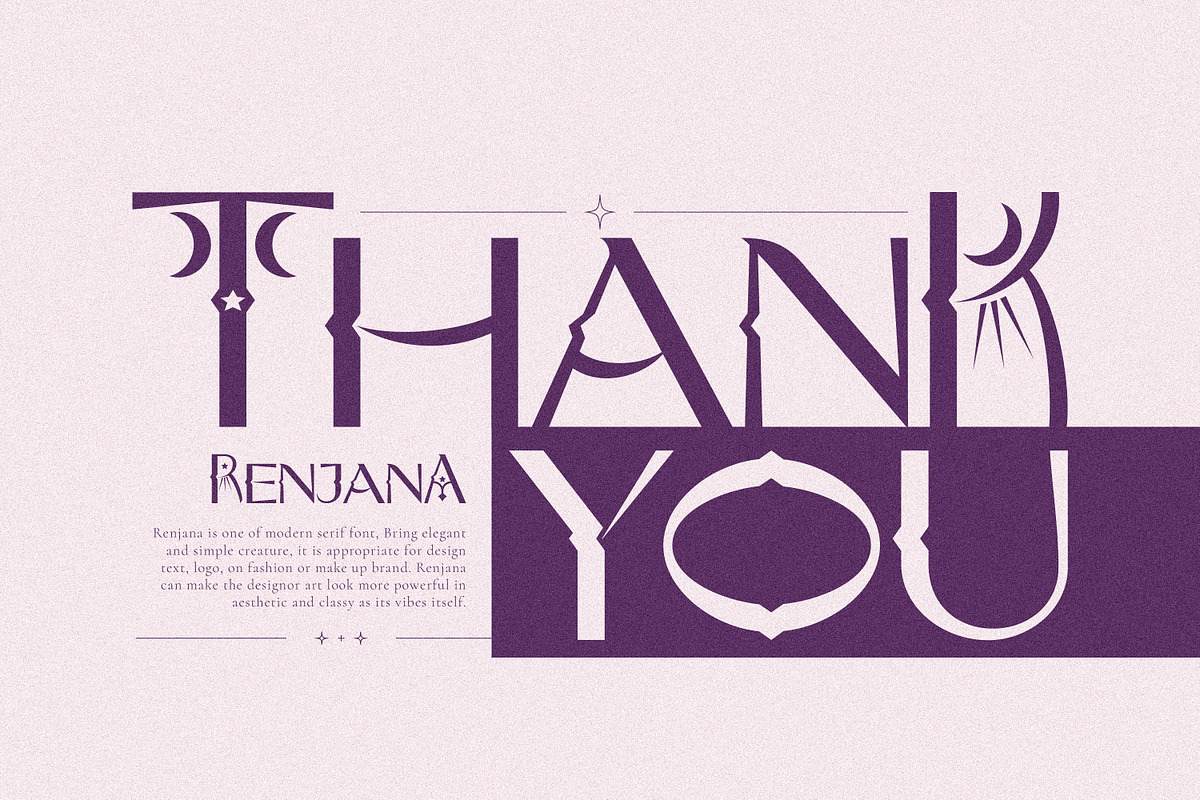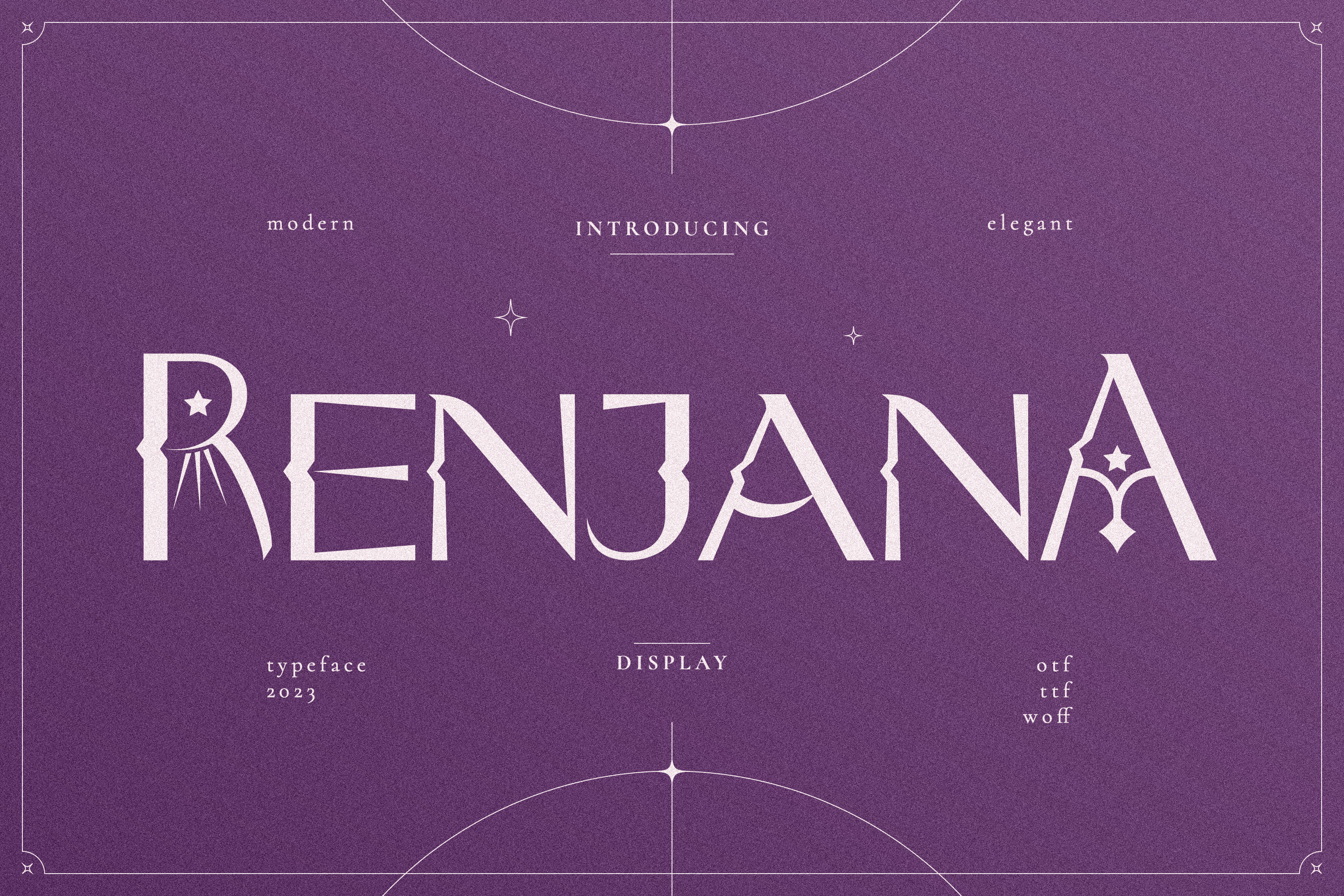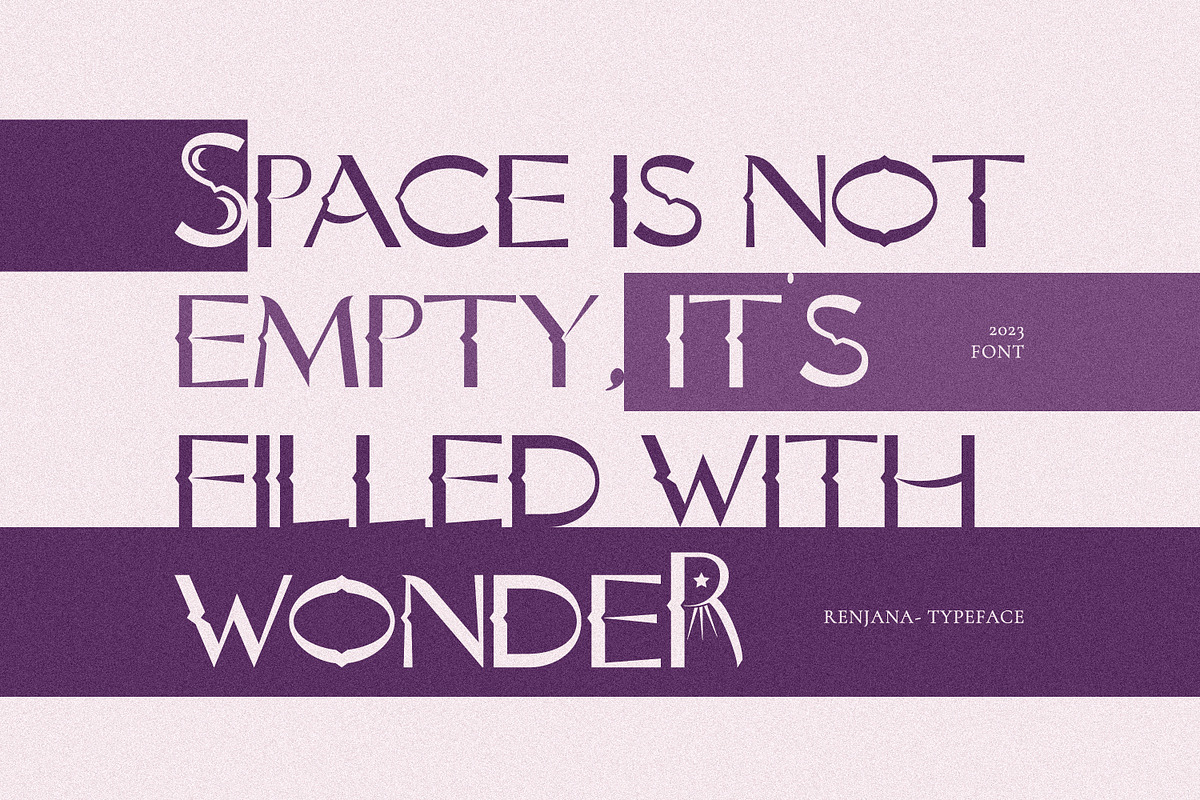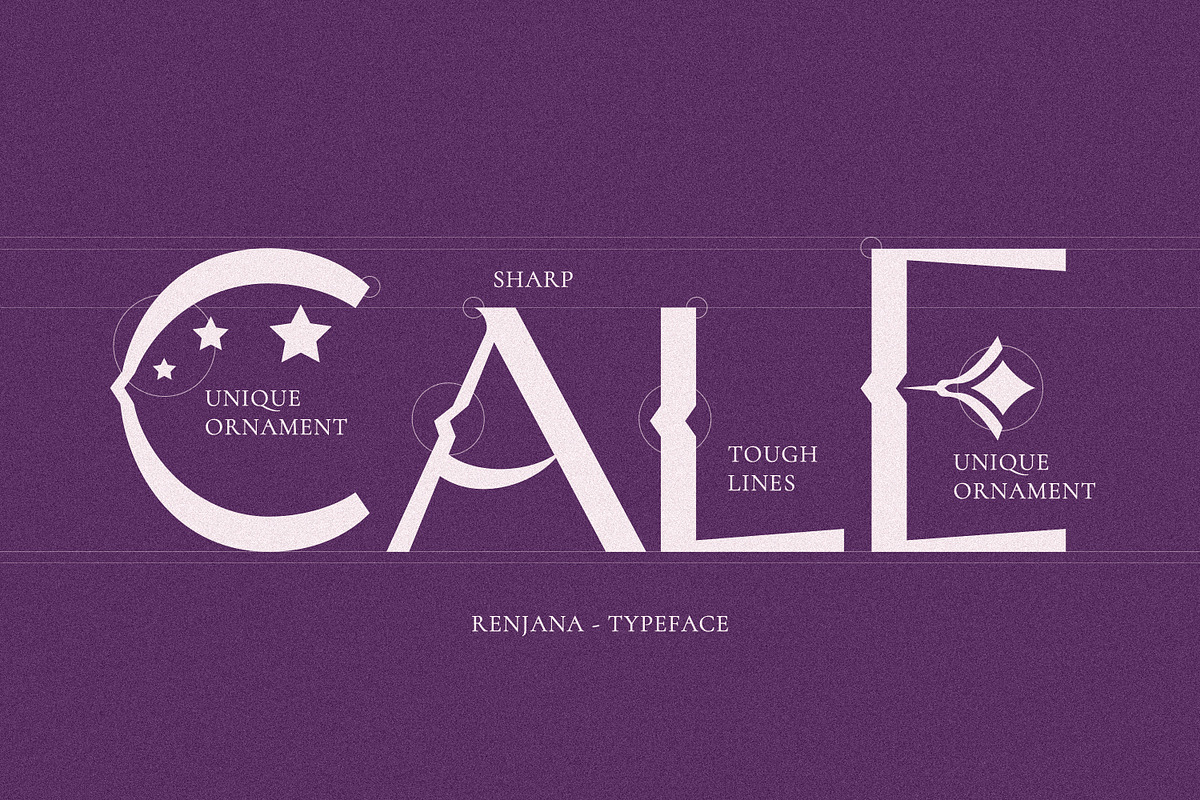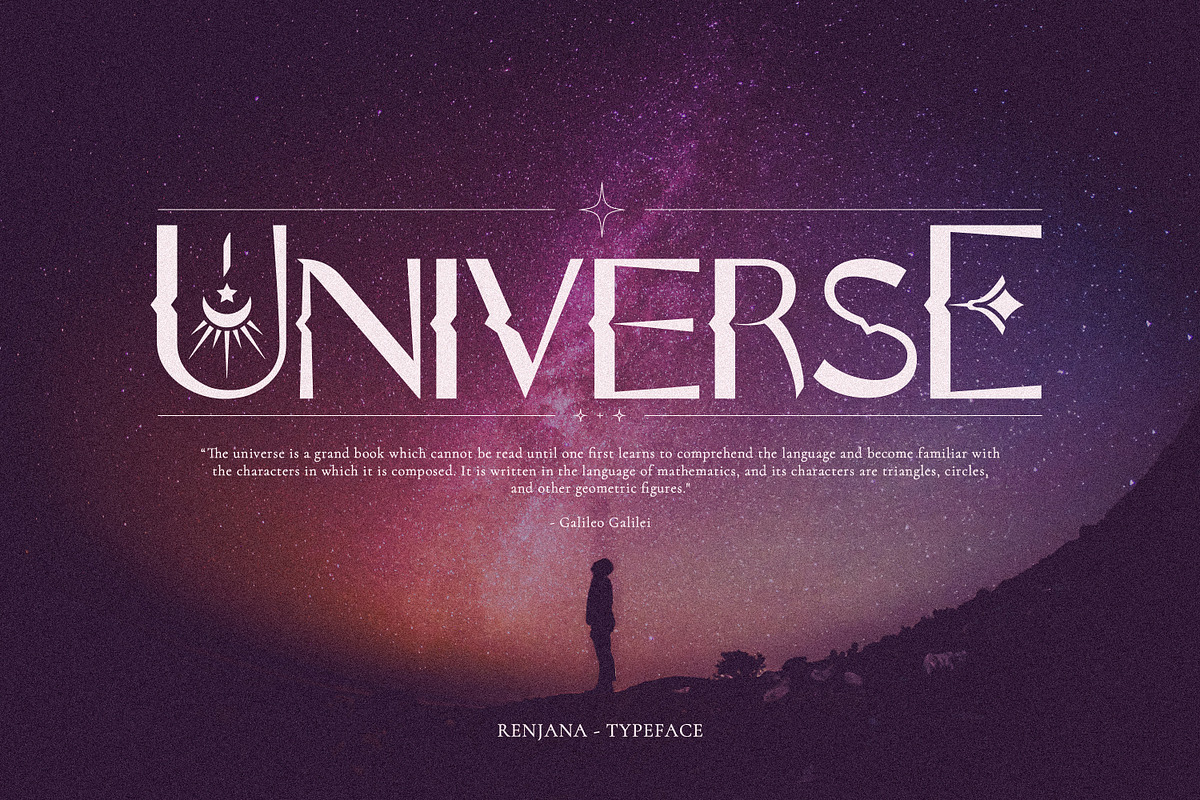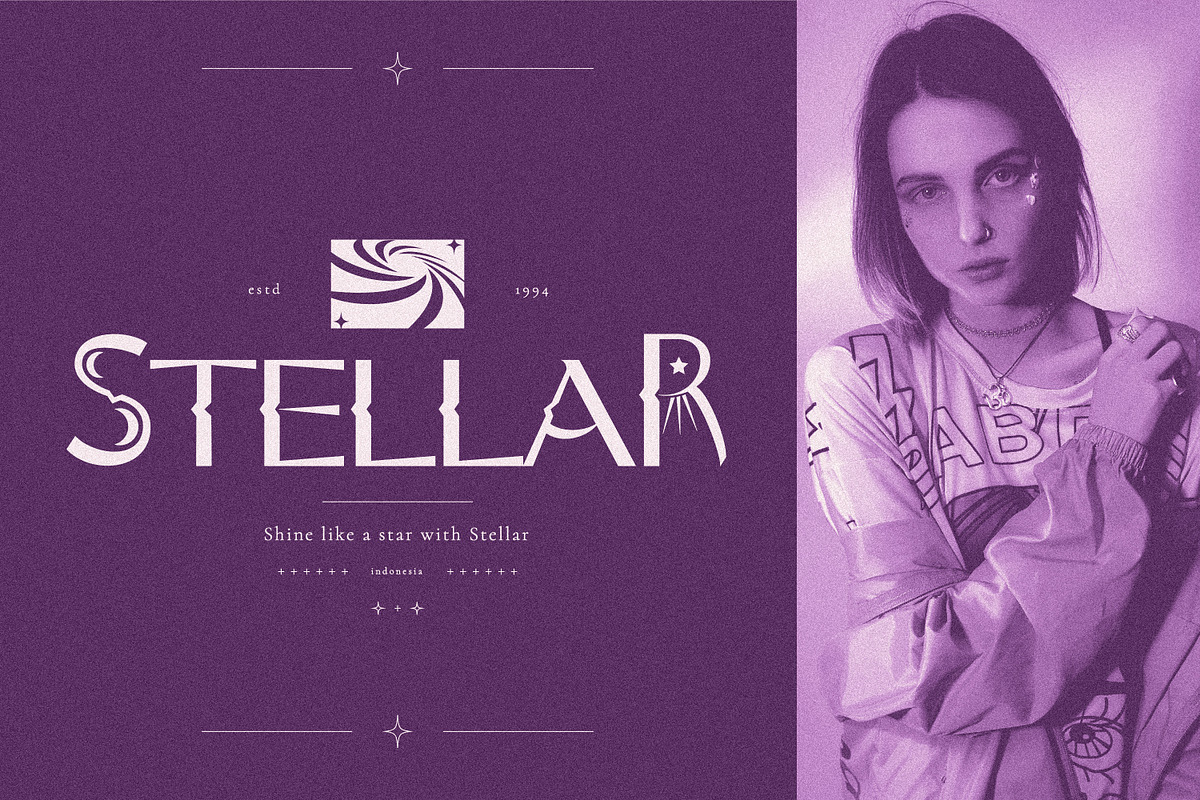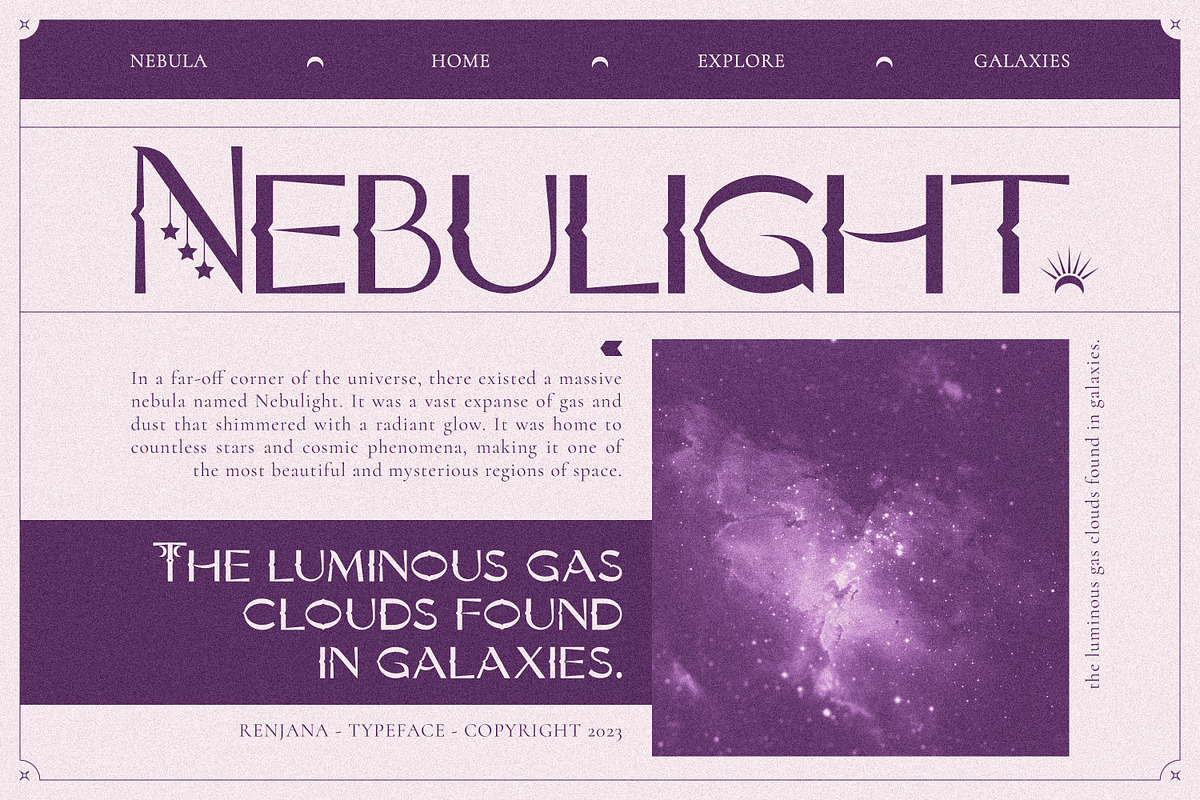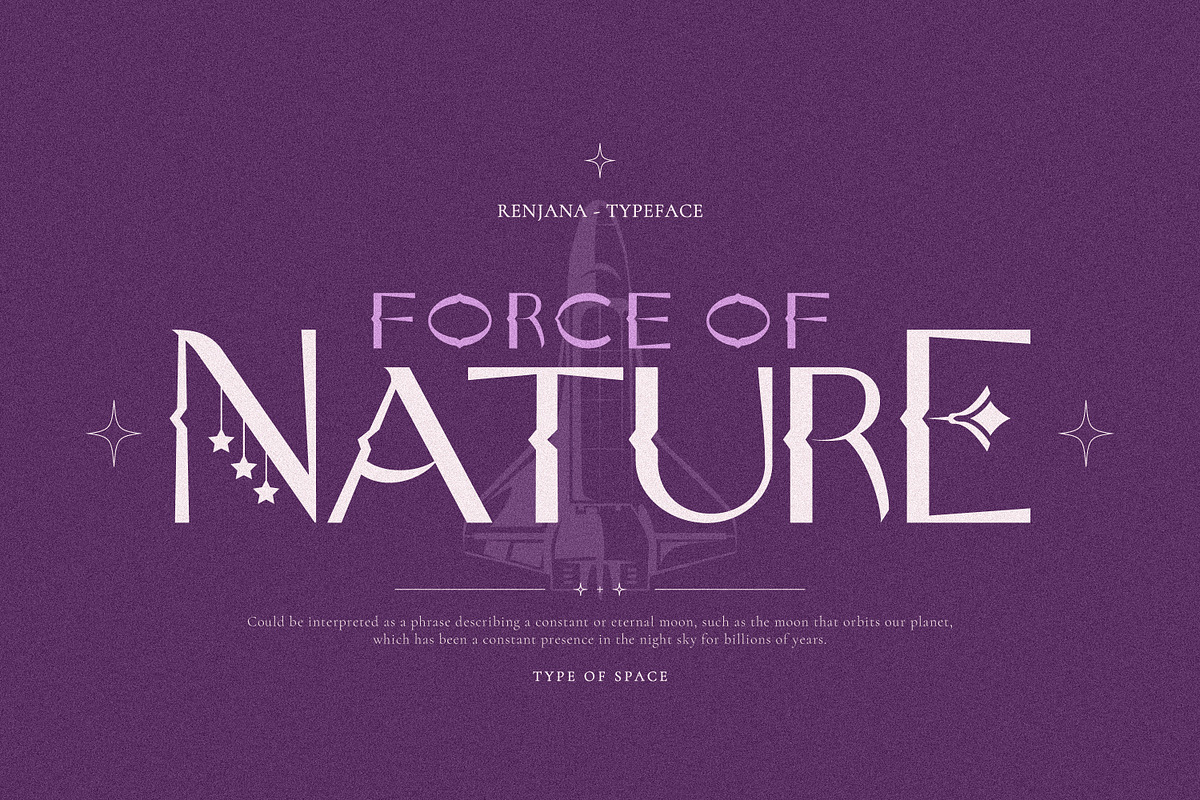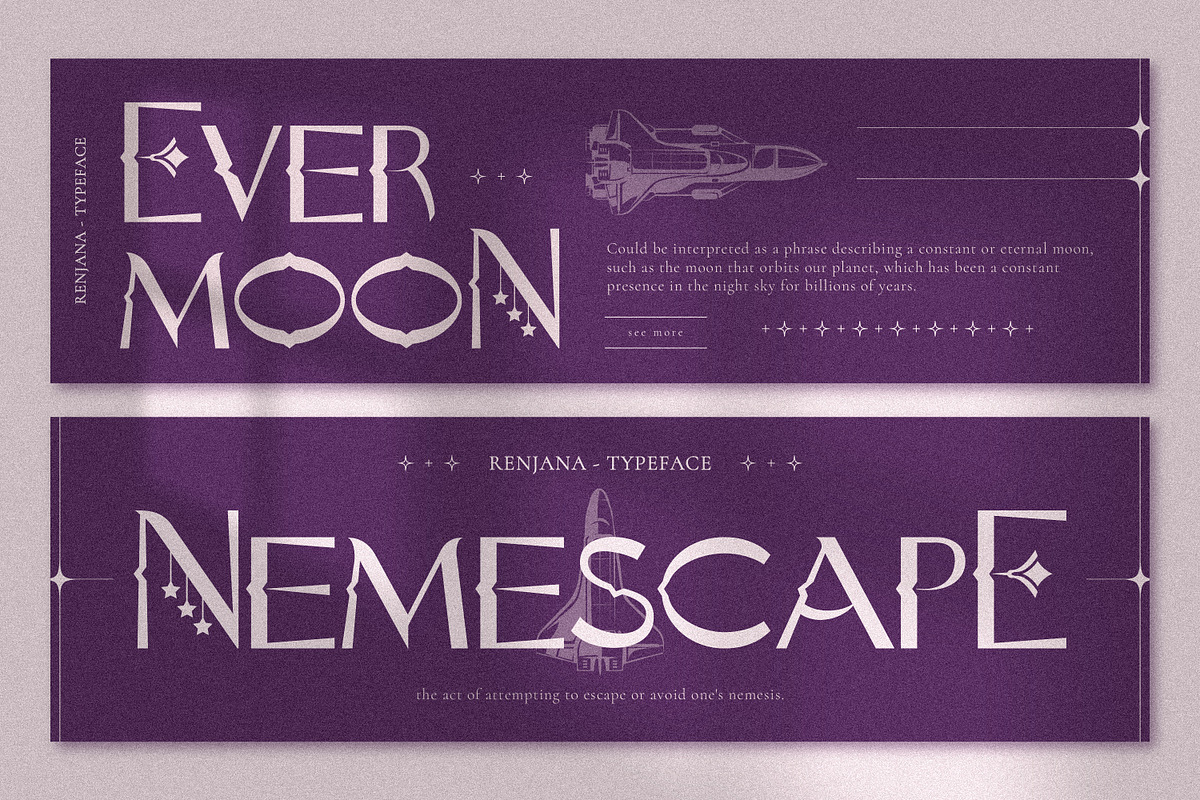
Renjana Typeface
Renjana is a display font that combines retro charm with futuristic elements, resulting in a unique and stylish design. Its bold and eye-catching letterforms, combined with sleek lines and geometric shapes, create an attention-grabbing effect. Perfect for modern branding, futuristic posters, and digital designs, it adds a touch of retro-futurism to any project.